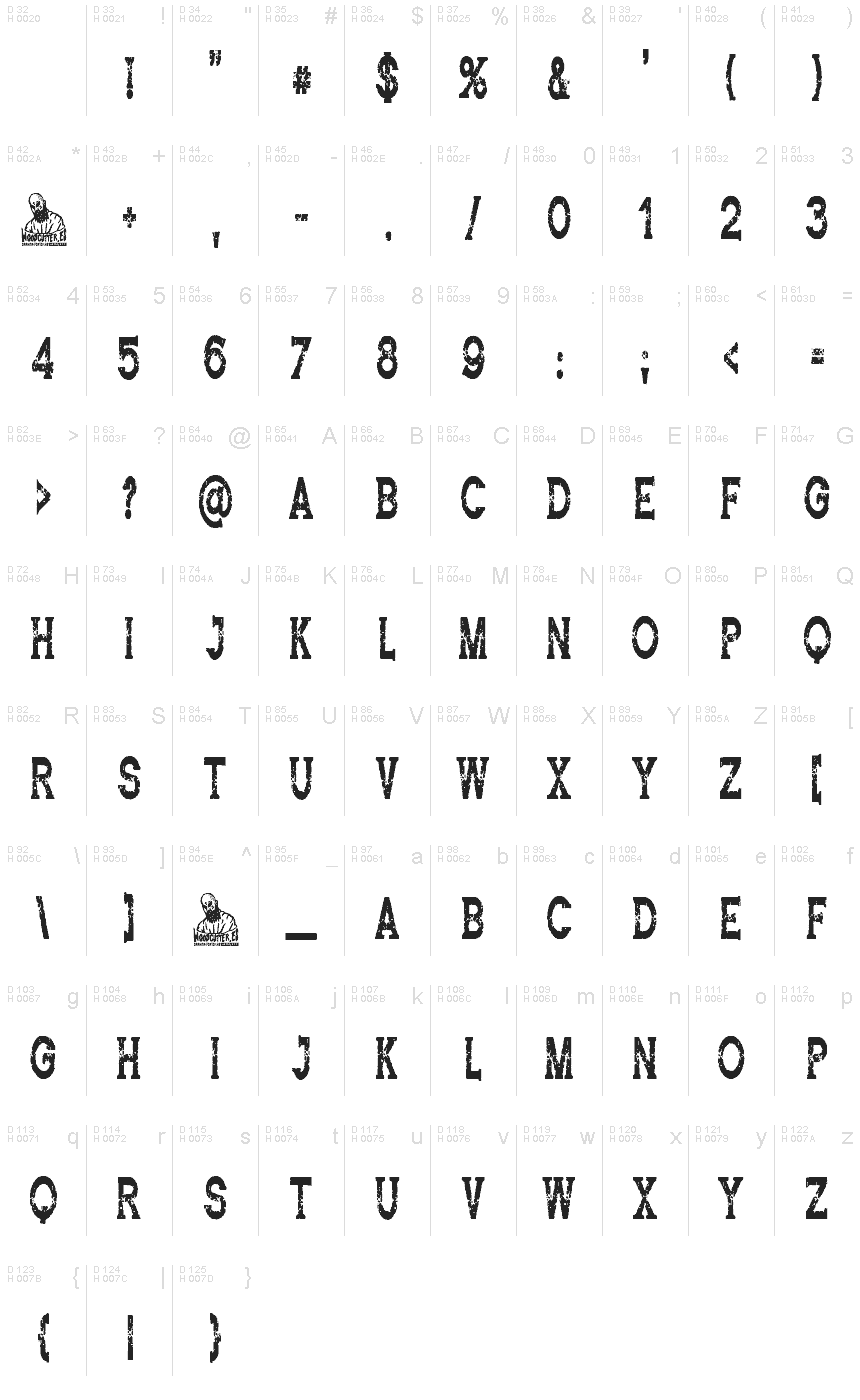
Eutopia Embassador
Eutopia Embassador font is a condensed display font by Woodcutter that features rugged, distressed textures and vintage appeal. With an impactful presence and urban influence, this eroded typeface stands out with its unique charm despite its condensed structure. Each letter appears imperfectly perfect with marks of time that present the beauty of imperfection to your eyes.
Showcase Eutopia Embassador in packaging designs, beer bottle labels & caps, pages or book/album covers. Also use it online in website designs for automotive businesses or printing projects such as stationery and branding for them.